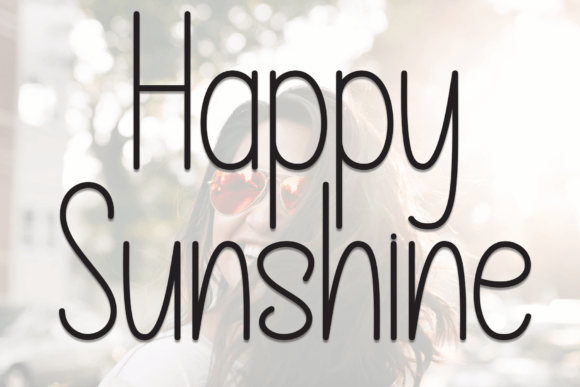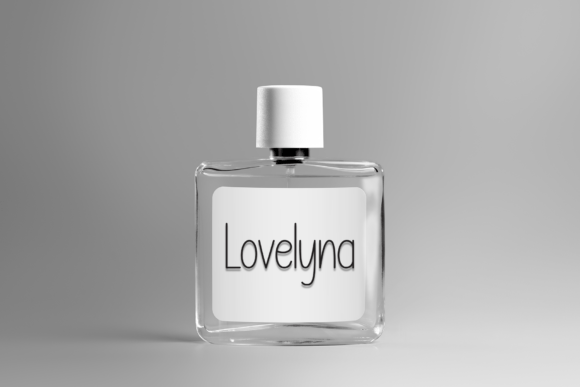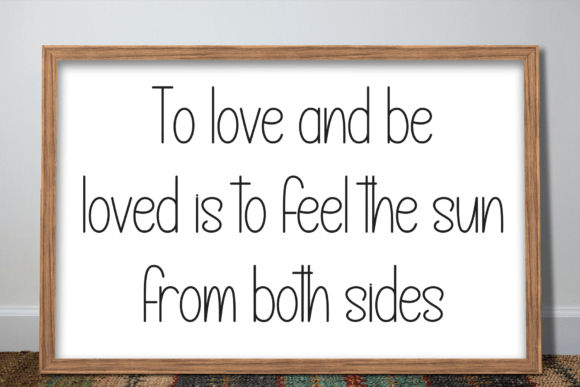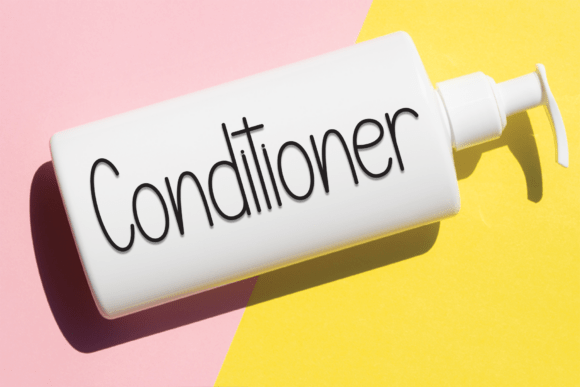
Happy Sunshine Font: A Playful Display Font for Social Media Design
About the Happy Sunshine Font
Elevate your designs with Happy Sunshine Font, a font that combines sophistication with readability. Happy Sunshine is a casual and neat display font that radiates a fresh, friendly vibe. With clean lines and a relaxed structure, it’s perfect for packaging, posters, and social media graphics. The approachable design adds charm and clarity to projects while maintaining a polished appearance.
Happy Sunshine excels in headlines, short slogans, and branding applications where a friendly, approachable feel is desired. Its legibility makes it suitable for posters and social media, but its casual nature limits its effectiveness in body text or UI elements requiring high readability over extended lengths. Avoid using it for long paragraphs or dense blocks of information.
This font’s friendly, optimistic personality pairs well with clean sans-serif fonts like Open Sans for body copy, providing a balanced contrast. For a more playful feel, consider pairing it with a rounded geometric sans-serif. Conversely, a classic serif like Garamond can add sophistication and a touch of formality, creating a harmonious balance between the casual nature of Happy Sunshine and a more traditional aesthetic.
Happy Sunshine Font Usage Examples
Happy Sunshine Font Example